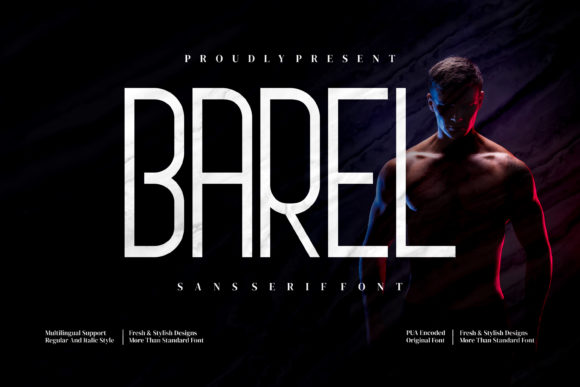
Barel Font: The Best Font for Sign Boards
Are you tired of boring, unoriginal sign boards that fail to capture attention? It's time to unleash your creativity and make a bold statement with Barel Font, the ultimate choice for sign boards that demand attention. This minimal and thin lettered sans serif font is a breath of fresh air, effortlessly elevating any project it touches. Its sleek lines and clean curves create an eye-catching aesthetic that will leave a lasting impression.
With Barel Font at your disposal, you can craft sign boards that radiate professionalism and sophistication. Its versatile nature allows it to complement a wide range of designs, from modern and minimalist to classic and elegant. Whether you're creating signage for a grand opening, promoting a special event, or simply showcasing your business, Barel Font will elevate your message with its understated yet impactful presence.
Imagine the impact of a sign board that draws the eye like a magnet, enticing passersby to explore your offerings. With Barel Font, you can create signage that commands attention, generates intrigue, and drives foot traffic. Its clean lines and elegant curves create a visual allure that will make your sign boards the talk of the town.
But Barel Font isn't just aesthetically stunning; it's also incredibly versatile. Its thin and airy characters allow for maximum readability, even from a distance. This makes it ideal for sign boards that need to convey information clearly and effectively. Whether you're displaying directions, announcing promotions, or simply sharing a message, Barel Font ensures that your words will be seen and understood.
In a world of visual noise, it's essential to have a font that stands out from the crowd. Barel Font is the perfect choice for those who want to create sign boards that are both visually appealing and highly functional. Its unique combination of style and readability makes it a winner for any business or organization looking to make a lasting impression.